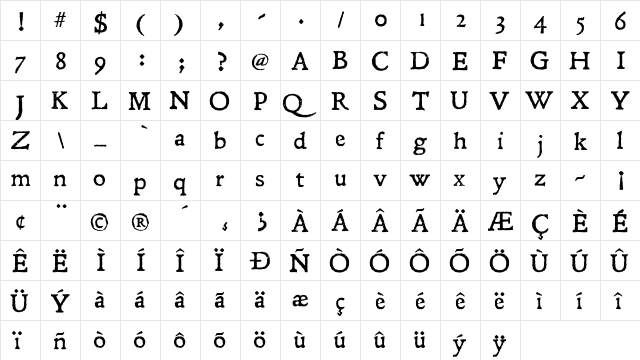
Leander Regular
| Foundry | Tension Type |
| Designer | Michael Tension |
Design Context for Leander Typeface
Leander offers clean, dependable letterforms without strong stylistic allegiance, making it a practical choice for designers who need flexibility.
Pro Tip: Pair Leander with a font of contrasting weight or personality to build a more expressive typographic hierarchy.